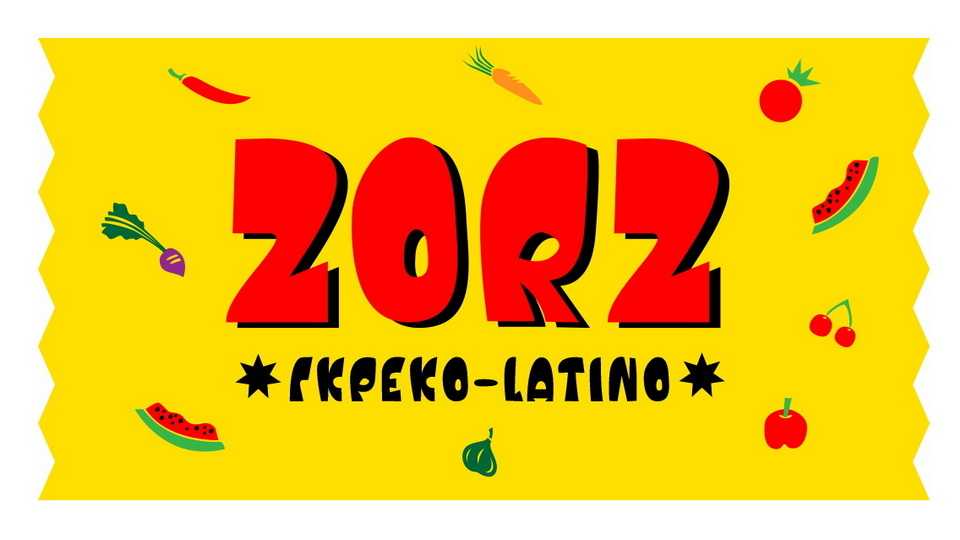
Download Zorz font, a display typeface inspired by old hand style signs, the popular inscription and compiled by the last artist who worked in the city of Patras from 80-90-2005 with the signature Zorz.